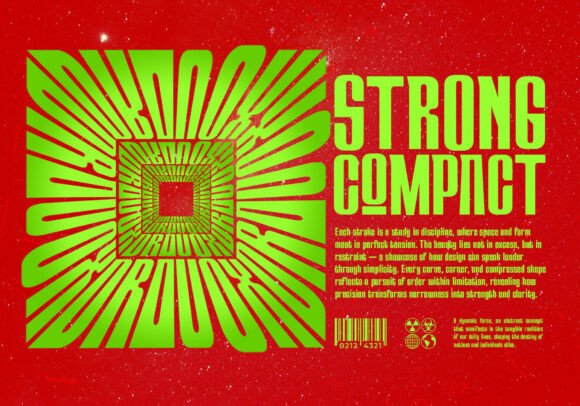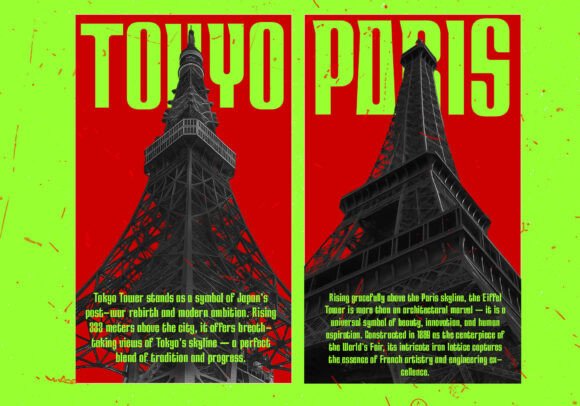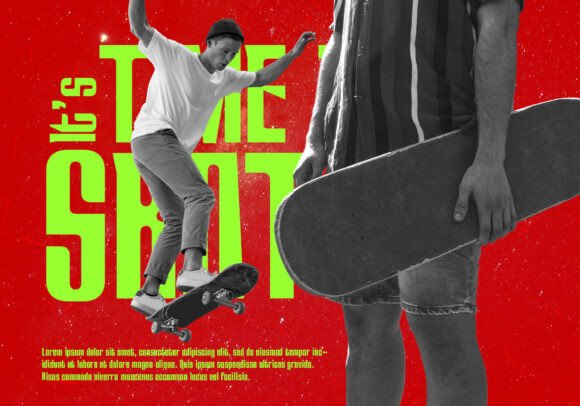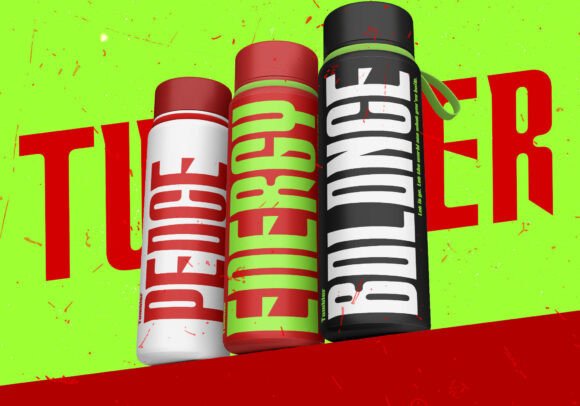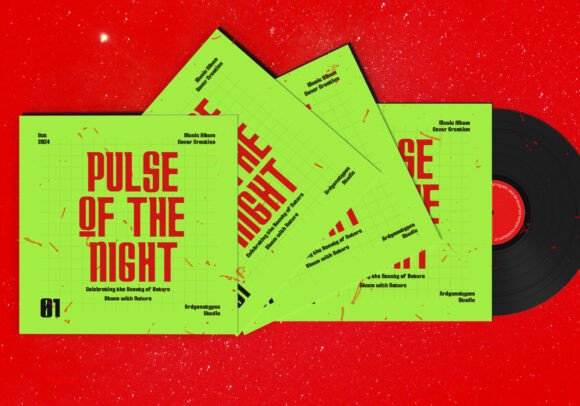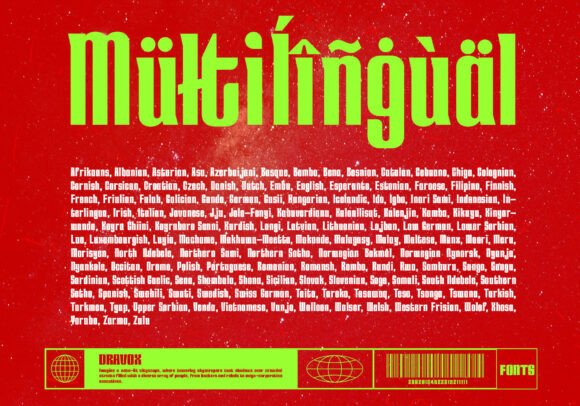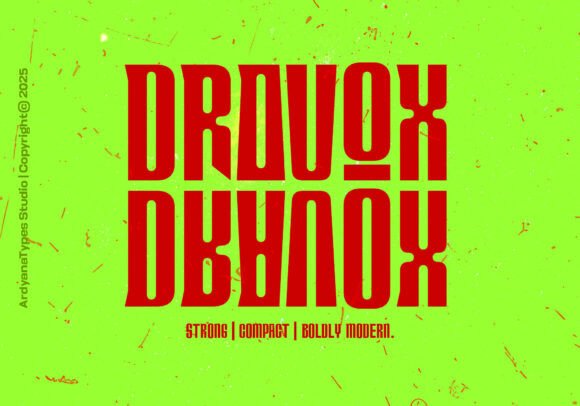
Unleash Your Creativity with Dravox Font: A Bold and Powerful Display Font
Are you looking for a font that can make an immediate, powerful impact with your designs? Look no further than Dravox, a strong, compact, and unapologetically bold display font that merges classic Wild West slab energy with sharp, contemporary flair. This heavy, all-caps typeface is defined by its condensed verticality and dramatic, reverse-contrast serifs, creating a striking visual tension that demands attention.
Key Features of Dravox Font
- Condensed Verticality: Dravox font features a compact, vertical design that makes it perfect for headlines, titles, and short phrases.
- Reverse-Contrast Serifs: The font’s dramatic, reverse-contrast serifs (where horizontal strokes are thicker than vertical ones) create a striking visual tension that adds to its bold and powerful aesthetic.
- Rough, Distressed Texture: The slightly rough, distressed texture of Dravox font complements its raw, uncompromising aesthetic, giving it a unique and edgy feel.
- PUA-Encoded: Dravox font is PUA-encoded, allowing effortless access to all glyphs, swashes, and alternate characters, making it easy to use and customize.
Perfect for High-Impact Designs
Dravox font is expertly suited for projects requiring high visual aggression and immediate attention. Its bold and powerful aesthetic makes it perfect for:
- Heavy Rock Album Covers: Dravox font is ideal for creating eye-catching and memorable album covers that reflect the energy and intensity of heavy rock music.
- Edgy Streetwear Branding: The font’s bold and rebellious aesthetic makes it perfect for streetwear branding that wants to make a statement.
- Masculine Product Packaging: Dravox font is well-suited for packaging designs that require a strong and rugged look, such as outdoor gear, tools, or automotive products.
- Large Sports Posters: The font’s condensed verticality and bold aesthetic make it perfect for creating eye-catching sports posters that grab attention.
- Impactful Vintage-Meets-Modern Logos: Dravox font is ideal for creating logos that blend vintage and modern elements, making it perfect for businesses that want to convey a sense of heritage and innovation.
Convey Intensity and Durability with Dravox Font
Dravox font is designed to convey intensity, durability, and a bold, rebellious statement that is impossible to ignore. Its raw, uncompromising aesthetic makes it perfect for designers and crafters who want to create designs that stand out from the crowd. With Dravox font, you can:
- Create Memorable Headlines: Use Dravox font to create headlines that grab attention and make a lasting impression.
- Add Edge to Your Designs: The font’s bold and rebellious aesthetic adds an edge to your designs, making them more engaging and memorable.
- Convey Confidence and Strength: Dravox font conveys confidence and strength, making it perfect for businesses that want to project a bold and powerful image.
Get Creative with Dravox Font
Dravox font is a versatile and powerful tool that can be used in a variety of creative projects. Whether you’re a designer, crafter, or DIY enthusiast, Dravox font is the perfect choice for anyone looking to add a bold and rebellious touch to their designs. With its PUA-encoded feature, you can easily access all glyphs, swashes, and alternate characters, making it easy to customize and experiment with different designs.
| Author | ardyanatypes |
In conclusion, Dravox font is a bold and powerful display font that is perfect for designers and crafters who want to make an immediate, powerful impact with their designs. Its unique combination of classic Wild West slab energy and sharp, contemporary flair makes it a versatile and attention-grabbing font that is sure to stand out. With its PUA-encoded feature and rough, distressed texture, Dravox font is the perfect choice for anyone looking to add a bold and rebellious touch to their designs.